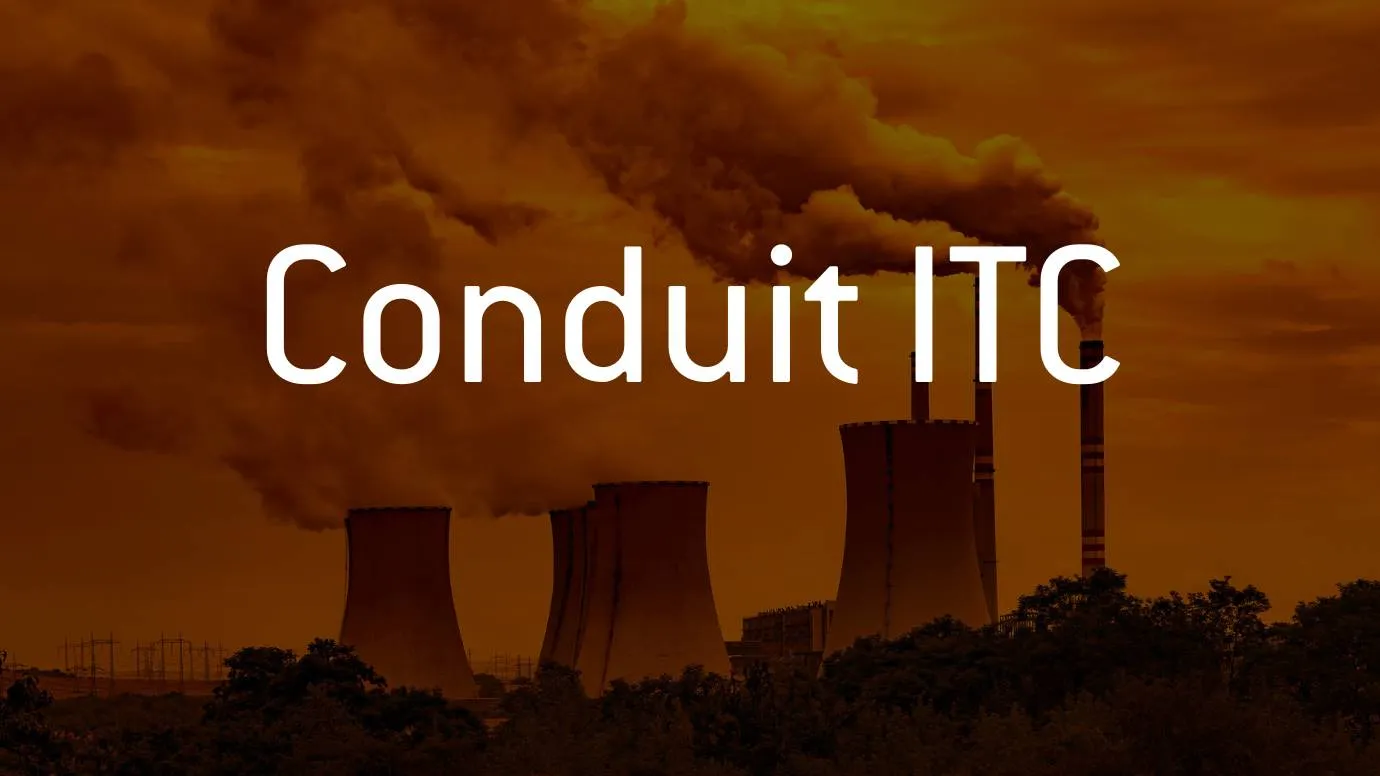
Conduit ITC Font Family is a sans-serif typeface that comes in 4 weights including Regular, Bold, Italic, and Bold Italic. This modern typeface is Conduit ITC Font that was designed and shared by Mark Van Bronkhorst.
It is providing OpenType and TrueType features. In addition, it can support many different international characters such as Latin, Cyrillic, French. FF Din Font and FF good font are the most similar fonts to this typeface.
| Name | Conduit ITC Font |
| Designer | Mark van Bronkhorst |
| Foundry | ITC |
| Style | Sans-serif |